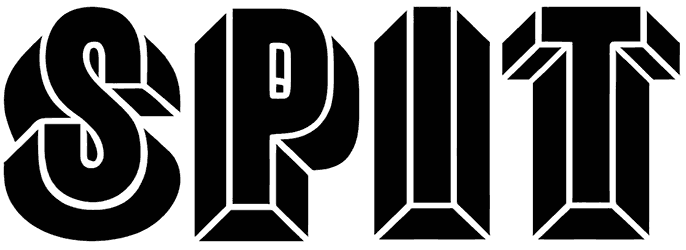
Spit Font
Spit is a retro font with strong vintage inspiration. This font, without lowercase letters, comes in handy for historical movies, book titles, posters, and any other places that need a decorative layout. If you want to be distinctive in any upcoming graphical design, try this 3D font out and see how it sounds.